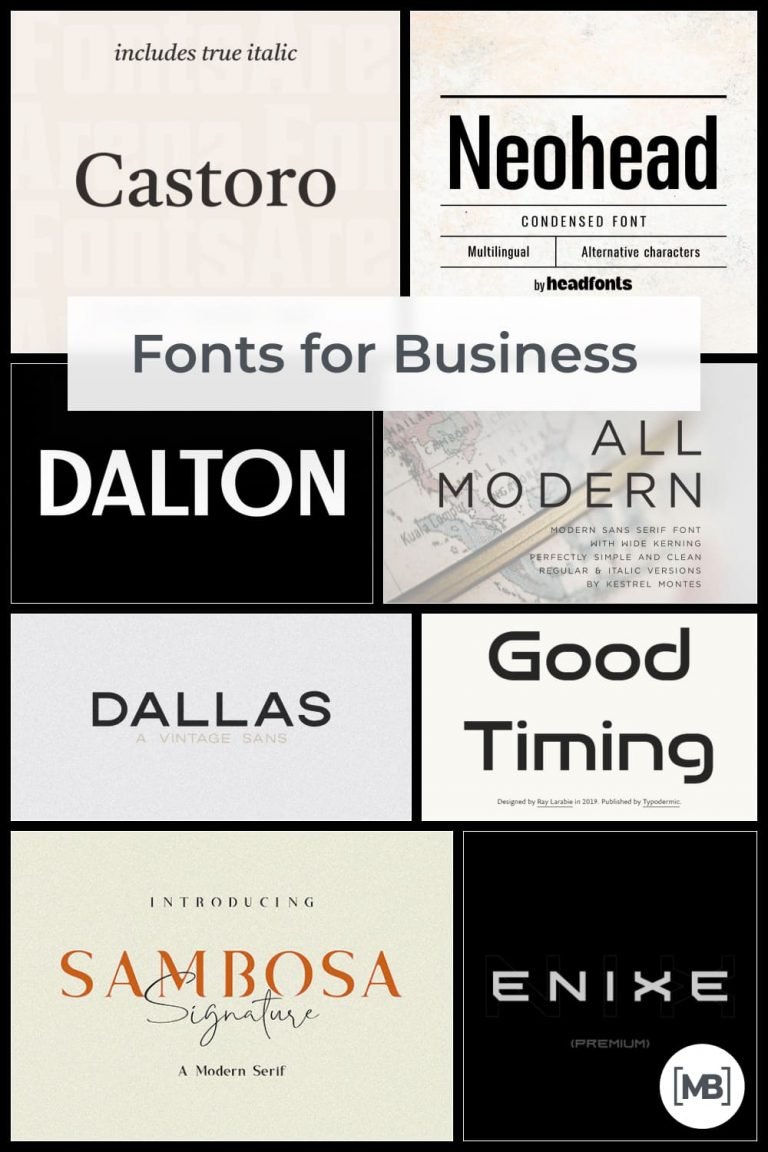
Best Fonts For Company Name . Step into the world of. Serif typefaces are best used as business logo fonts if your brand is attempting to convey feelings of elegance. Looking for the best logo fonts and how to pick the right one? You’ve crafted the most compelling brand story, but it falls flat. Here are the 60 best fonts and fonts style designs that can help you find the perfect brand font for your business. Some common examples include slab serif, garamond, bodoni, and didot. If you’re looking for the perfect font for a logo, business card, stationery, or any kind of branding for a corporate business, you’ve come.
If you’re looking for the perfect font for a logo, business card, stationery, or any kind of branding for a corporate business, you’ve come. Looking for the best logo fonts and how to pick the right one? Serif typefaces are best used as business logo fonts if your brand is attempting to convey feelings of elegance. Some common examples include slab serif, garamond, bodoni, and didot. You’ve crafted the most compelling brand story, but it falls flat. Here are the 60 best fonts and fonts style designs that can help you find the perfect brand font for your business. Step into the world of.
Best Fonts For Company Name You’ve crafted the most compelling brand story, but it falls flat. Some common examples include slab serif, garamond, bodoni, and didot. Serif typefaces are best used as business logo fonts if your brand is attempting to convey feelings of elegance. If you’re looking for the perfect font for a logo, business card, stationery, or any kind of branding for a corporate business, you’ve come. Step into the world of. Here are the 60 best fonts and fonts style designs that can help you find the perfect brand font for your business. Looking for the best logo fonts and how to pick the right one? You’ve crafted the most compelling brand story, but it falls flat.
36 More Fonts to Consider When Branding Your Business or Blog — Journey With Jess Inspiration Best Fonts For Company Name Step into the world of. Here are the 60 best fonts and fonts style designs that can help you find the perfect brand font for your business. Serif typefaces are best used as business logo fonts if your brand is attempting to convey feelings of elegance. Some common examples include slab serif, garamond, bodoni, and didot. You’ve crafted the most. Best Fonts For Company Name.
How to Pick the Right Fonts for Your Brand Venngage Best Fonts For Company Name Here are the 60 best fonts and fonts style designs that can help you find the perfect brand font for your business. Step into the world of. You’ve crafted the most compelling brand story, but it falls flat. If you’re looking for the perfect font for a logo, business card, stationery, or any kind of branding for a corporate business,. Best Fonts For Company Name.
20 Best Professional Modern Business Fonts 2021 Theme Junkie Best Fonts For Company Name Here are the 60 best fonts and fonts style designs that can help you find the perfect brand font for your business. If you’re looking for the perfect font for a logo, business card, stationery, or any kind of branding for a corporate business, you’ve come. Serif typefaces are best used as business logo fonts if your brand is attempting. Best Fonts For Company Name.
Top 100 Best Fonts for Graphic Designers (2021) Best Fonts For Company Name Here are the 60 best fonts and fonts style designs that can help you find the perfect brand font for your business. Serif typefaces are best used as business logo fonts if your brand is attempting to convey feelings of elegance. You’ve crafted the most compelling brand story, but it falls flat. Looking for the best logo fonts and how. Best Fonts For Company Name.
36 Font Styles to Consider When Branding Your Business or Blog — Journey With Jess Inspiration Best Fonts For Company Name Here are the 60 best fonts and fonts style designs that can help you find the perfect brand font for your business. Some common examples include slab serif, garamond, bodoni, and didot. You’ve crafted the most compelling brand story, but it falls flat. Looking for the best logo fonts and how to pick the right one? If you’re looking for. Best Fonts For Company Name.
30+ Best Business & Corporate Fonts 2021 Design Shack Best Fonts For Company Name Some common examples include slab serif, garamond, bodoni, and didot. Here are the 60 best fonts and fonts style designs that can help you find the perfect brand font for your business. Step into the world of. You’ve crafted the most compelling brand story, but it falls flat. If you’re looking for the perfect font for a logo, business card,. Best Fonts For Company Name.
The Best Modern Fonts for Logos in 2020 Best Fonts For Company Name Serif typefaces are best used as business logo fonts if your brand is attempting to convey feelings of elegance. Some common examples include slab serif, garamond, bodoni, and didot. If you’re looking for the perfect font for a logo, business card, stationery, or any kind of branding for a corporate business, you’ve come. Looking for the best logo fonts and. Best Fonts For Company Name.
30+ Best Business & Corporate Fonts 2021 Design Shack Best Fonts For Company Name Step into the world of. Some common examples include slab serif, garamond, bodoni, and didot. Here are the 60 best fonts and fonts style designs that can help you find the perfect brand font for your business. Looking for the best logo fonts and how to pick the right one? Serif typefaces are best used as business logo fonts if. Best Fonts For Company Name.
80+ Best Canva Fonts Ultimate Canva Font Guide for Choosing Fonts Best Fonts For Company Name Some common examples include slab serif, garamond, bodoni, and didot. Step into the world of. You’ve crafted the most compelling brand story, but it falls flat. Looking for the best logo fonts and how to pick the right one? Here are the 60 best fonts and fonts style designs that can help you find the perfect brand font for your. Best Fonts For Company Name.